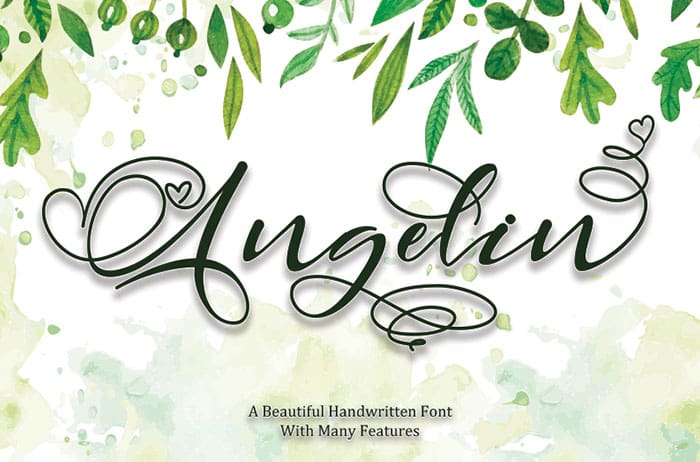
Angelin handwritten font. This font looks perfect for Valentine’s Day designs, or for other romantically inclined styles and projects. Created this font by Thomas Aradea. You can also search more free Handwritten Fonts. I hope you enjoy this font.
Designed By : Thomas Aradea